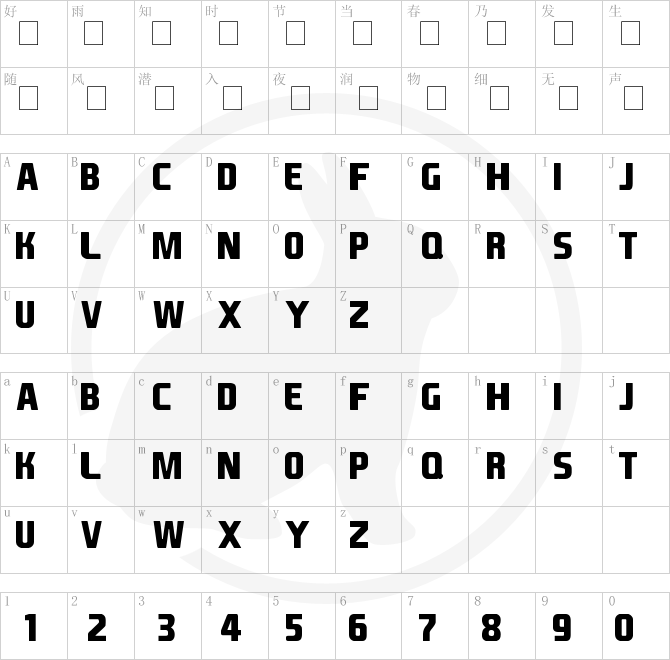
- Font Name:EA Font v1.5 by Ghettoshark
EA-Font-v15-by-Ghettoshark.ttf is a very beautiful artistic font, EA-Font-v15-by-Ghettoshark.ttf is widely used in the design and printing of various books and pictures,EA-Font-v15-by-Ghettoshark.ttf has a strong visual impact,EA-Font-v15-by-Ghettoshark.ttf is a commonly used font in newspapers, magazines and books, and is used in posters, e-commerce Poster design, store design, logo design, font design and other fields.EA-Font-v15-by-Ghettoshark.